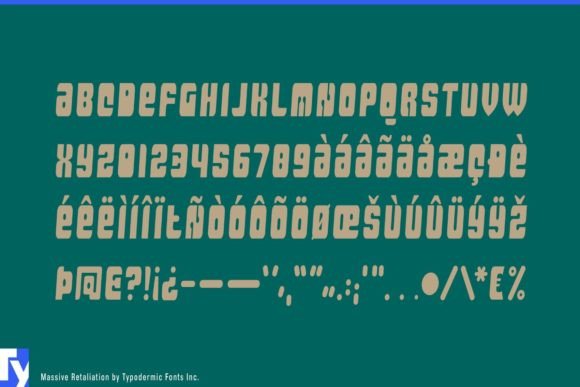
Introduction to Massive Retaliation Font
Remember that moment when you stumbled upon the perfect design element for your project? The one that instantly elevates your creative vision and makes it stand out? For many designers, that moment is what makes all the hard work worth it. And, for those who love 90s-style techno graphics, that moment often comes in the form of a retro-inspired display font.
Today, we’re excited to introduce you to the Massive Retaliation Font – a high-quality design resource that’s sure to bring a touch of nostalgia to your creative projects. With its sleek, futuristic aesthetic and transparent background, this font is the perfect addition to any design that needs a boost of retro flair.
Key Features of Massive Retaliation Font
- Unique, bold, and modern font style with a transparent background, ideal for graphic designers and artists.
- Supports a wide range of languages, making it a versatile choice for international creative projects.
- Perfect for use in digital and print media, including logos, posters, and social media graphics.
Honest Review: Massive Retaliation Font
As a designer, I’m always on the lookout for high-quality design resources to elevate my creative projects. Recently, I stumbled upon the Massive Retaliation Font, and I’m excited to share my honest review.
What works well: ✨ The Massive Retaliation Font is available for a free download, making it a fantastic resource for designers on a budget. The font is also highly customizable, with a transparent background that allows for seamless integration into various design elements.
What doesn’t work well: ⚠️ While the font is high quality, it can be a bit overwhelming for smaller text sizes. Additionally, the font’s boldness can sometimes clash with other design elements, requiring some careful balancing.
- Can be overwhelming for smaller text sizes
- May clash with other design elements
Overall, I’m impressed with the Massive Retaliation Font. Its high-quality design and transparent background make it a valuable addition to any designer’s toolkit. With a little care and attention to detail, this font can help take your creative projects to the next level.
Use the Massive Retaliation Font on a transparent background to create a striking design. Experiment with different font sizes and colors to add visual interest to your design. You can also pair the Massive Retaliation Font with other high-quality fonts to create a unique and creative project.
The Massive Retaliation Font is ideal for creative projects such as logo design, branding, and advertising. It’s also great for use in social media graphics, presentations, and documents. With its high-quality design and free download, the Massive Retaliation Font is a valuable design resource for any creative project.